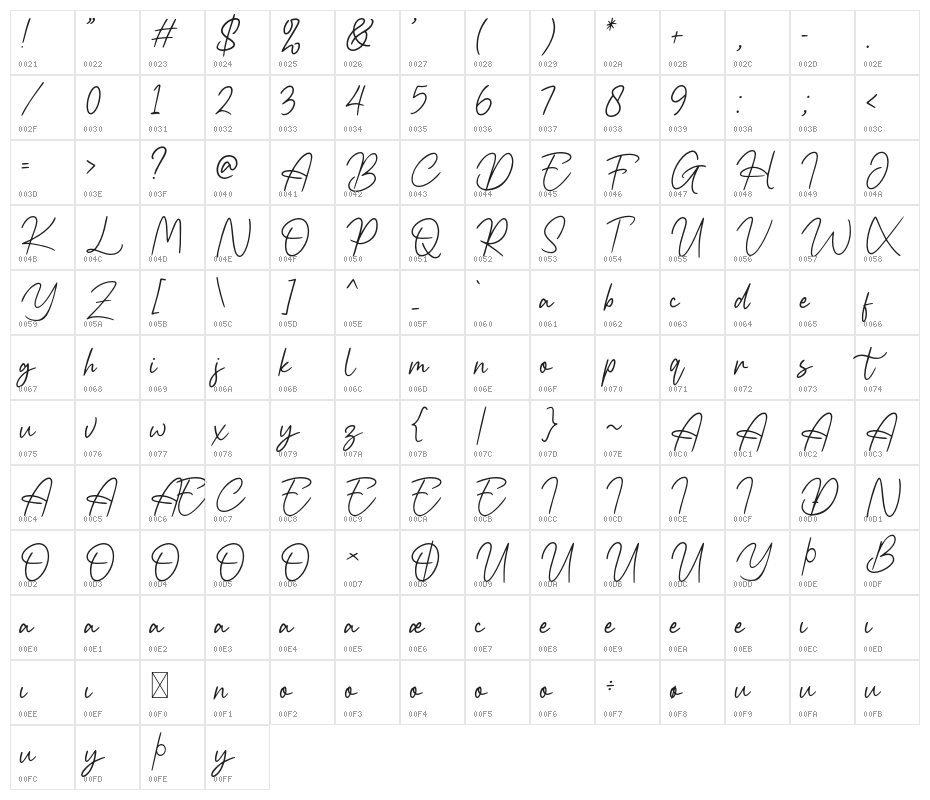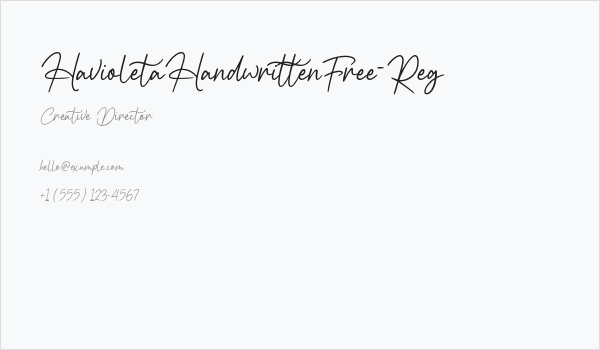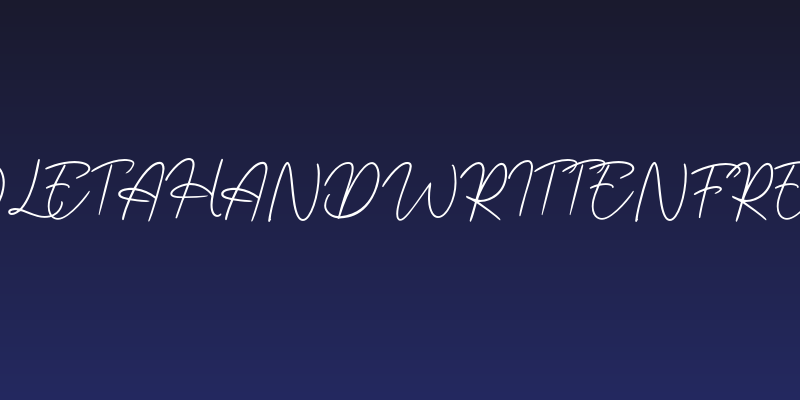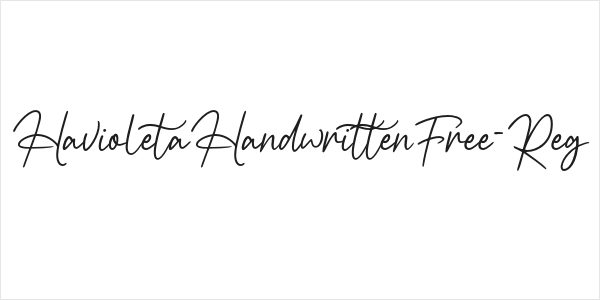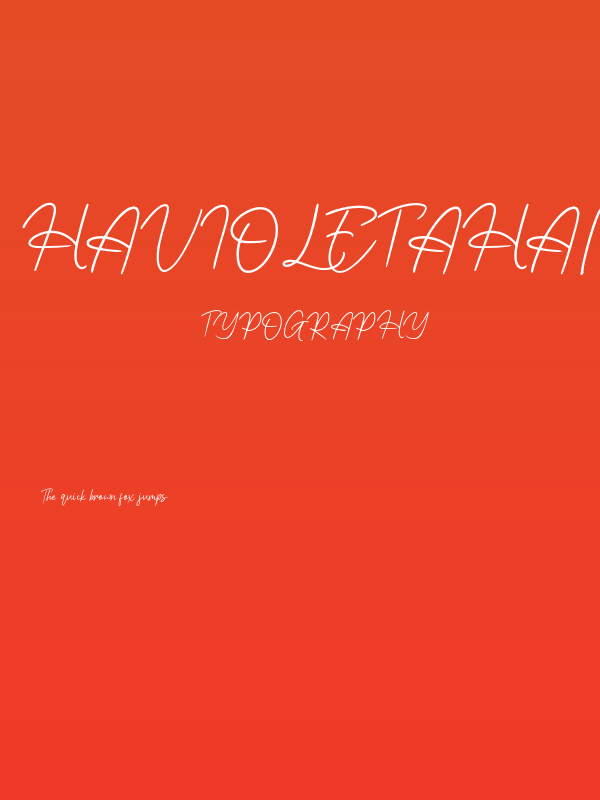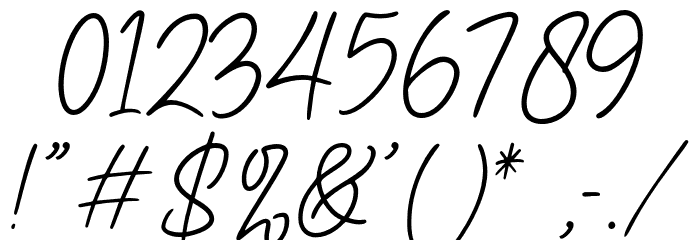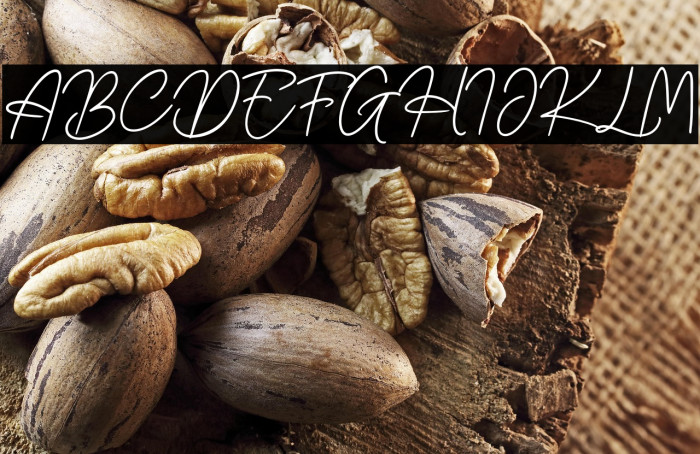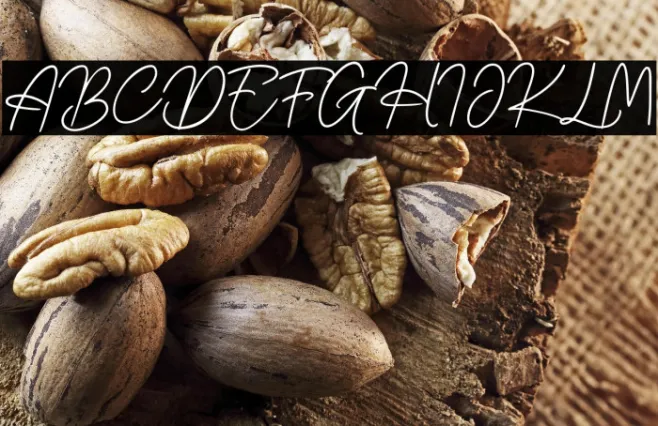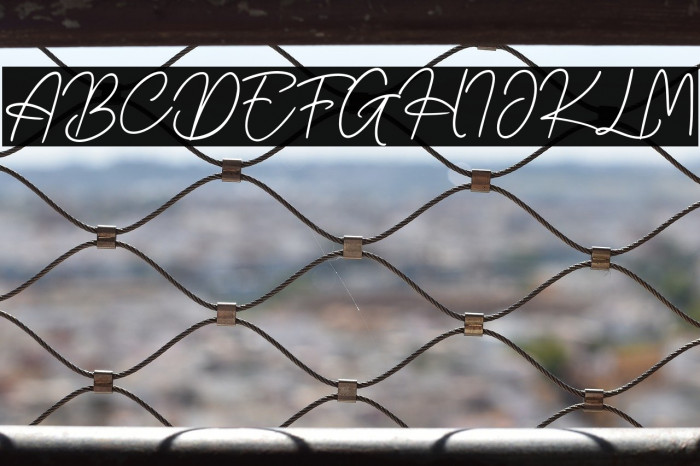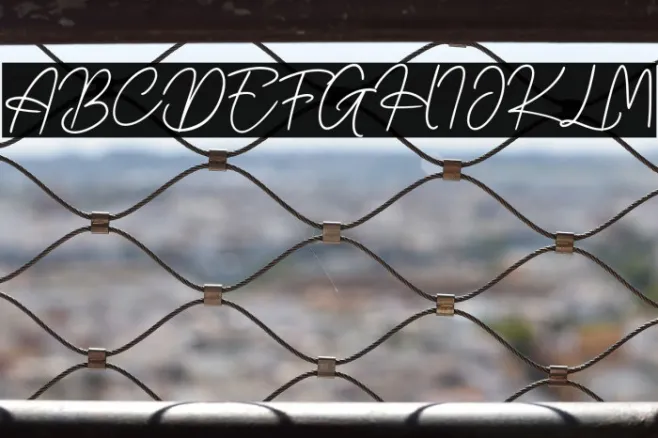
HavioletaHandwrittenFree-Reg Font
HavioletaHandwrittenFree-Reg Description
This font features a flowing, cursive style that mimics natural handwriting. The uppercase letters are elegantly connected, while the lowercase letters maintain a consistent, smooth flow. The numerals are clear and slightly slanted, complementing the overall handwritten aesthetic. Special characters are designed with the same fluidity, ensuring a cohesive look across all text. The font's organic and personal touch makes it ideal for projects that require a humanistic and approachable feel.
| Use Case | Logos, Invitations, Personal branding |
| Proposed Projects | Ideal for wedding invitations, personal branding, greeting cards, and any project that benefits from a personal touch. |